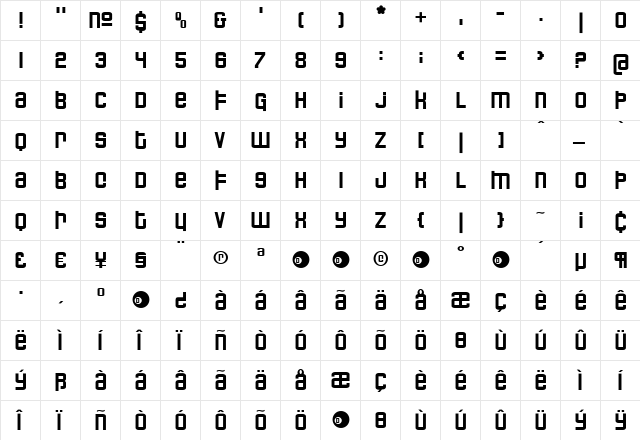
DreamboatStraight Medium
Design Context for DreamboatStraight Typeface
DreamboatStraight offers clean, dependable letterforms without strong stylistic allegiance, making it a practical choice for designers who need flexibility.